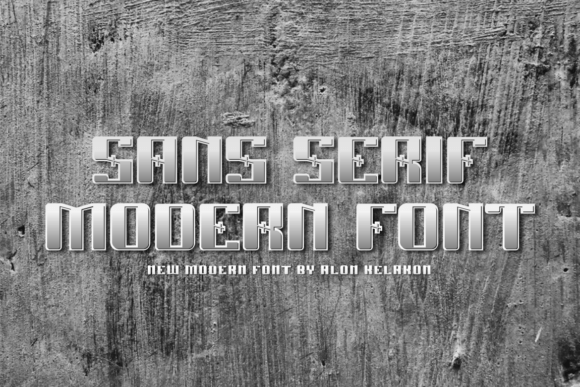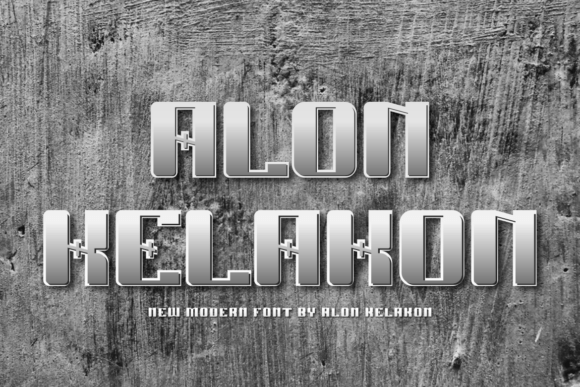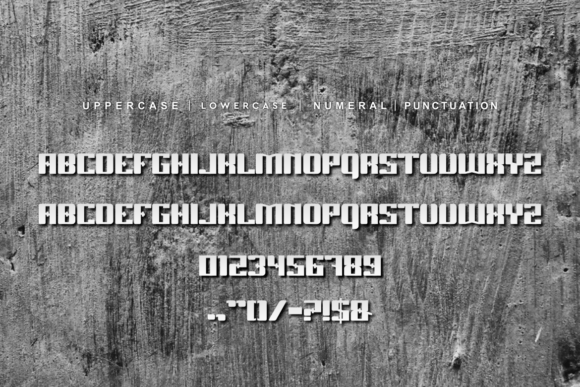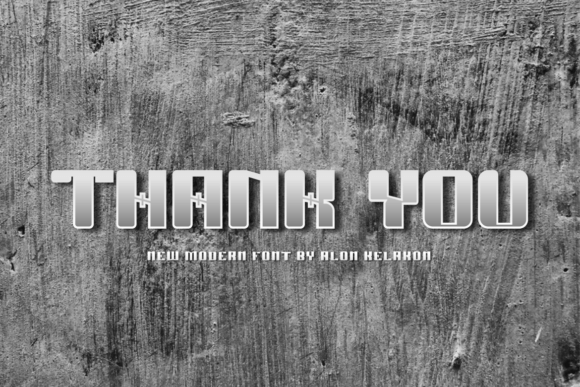
Introduction to Sameriz Font
Have you ever found yourself staring at a blank page, eager to bring your creative vision to life? You’ve got a concept, a color palette, and a clear idea of what you want to achieve – but something’s missing. That’s where the perfect font comes in. Enter the Sameriz Font, a sleek and modern display font designed to elevate your creative projects to new heights.
As a designer, you know how crucial it is to have access to high-quality design resources that can help you convey your message effectively. The Sameriz Font is more than just a design element – it’s a tool that can help you create a lasting impression and set your project apart from the rest.
Whether you’re working on a personal project or a client’s brief, the Sameriz Font is a valuable addition to your design arsenal. With its transparent background and clean lines, it’s the perfect choice for any creative project that requires a touch of sophistication and style.
Key Features of Sameriz Font
- Unique, stylish design that adds a touch of sophistication to any creative project
Honest Review: Sameriz Font
As a designer, I’m always on the lookout for high-quality design resources to elevate my creative projects. The Sameriz Font caught my eye with its unique aesthetic and sleek design. I downloaded the font for free and was eager to see how it would work in practice.
Here are some things that work well with the Sameriz Font:
- ✨ Beautiful, modern design that adds a touch of sophistication to any project
- ✨ High quality font that displays clearly on a variety of devices and screen sizes
- ✨ Perfect for creating eye-catching headings and titles
- ⚠️ The font doesn’t support a transparent background, which can make it difficult to use with certain design elements
- ⚠️ The font family is relatively small, so you may need to experiment with different font sizes and styles to achieve the desired look
Overall, I’m impressed with the Sameriz Font. While it has its limitations, it’s a valuable addition to any designer’s toolkit. With a little creativity and experimentation, it’s easy to create stunning designs with this font. I’d definitely recommend it to fellow designers looking for a high-quality, modern font.
Tips for Getting the Most Out of the Sameriz Font
Use the Sameriz Font in conjunction with a transparent background to create a seamless look. Experiment with different font sizes and colors to achieve the desired effect. The Sameriz Font is a versatile design resource that can be used in a variety of creative projects, from business presentations to social media graphics.
The Sameriz Font is commonly used in business presentations, social media graphics, and website design. Its high-quality design and transparent background make it an ideal font for creative projects where a seamless look is desired.